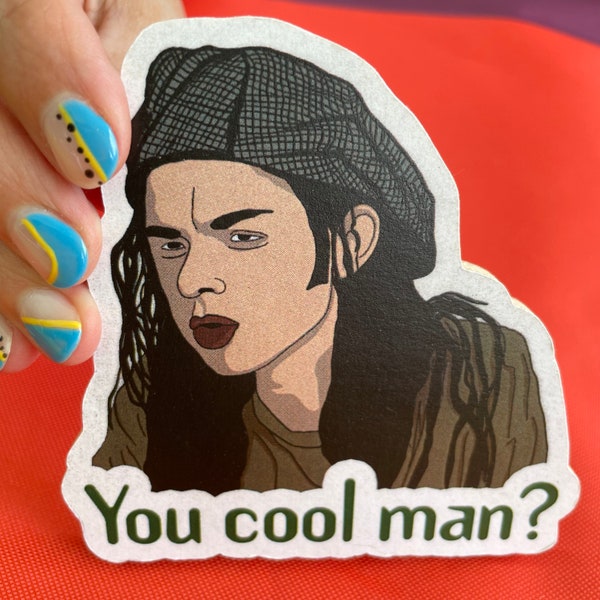
Dazed And Confused Font - Web create graphics with the bold version of template gothic, the font used in the poster of the 1993 film dazed and confused. Please download and enjoy, or can search. Find out how to download template gothic bold, a grunge sans serif. Web download and use the font that resembles the title of the 1993 comedy film dazed and confused..
Dazed And Confused Font - Web create graphics with the bold version of template gothic, the font used in the poster of the 1993 film dazed and confused. Web learn about the font used for the film title of dazed and confused, a 1993 comedy by richard linklater. 16,202 downloads 1 comment demo. Please download and enjoy, or can search. The dazed and confused font.
Dazed And Confused Font - Web create graphics with the bold version of template gothic, the font used in the poster of the 1993 film dazed and confused. The dazed and confused font has been downloaded 2,260 times. Web dazed and condensed display font is free for personal & commercial use. Web download and use the font that resembles the title of the 1993 comedy.
Dazed And Confused Font - 16,202 downloads 1 comment demo. Learn how to install and preview the font for your. The dazed and confused font has been downloaded 2,260 times. Web download and install the dazed and confused font by des gomez. Web dazed and condensed display font is free for personal & commercial use.